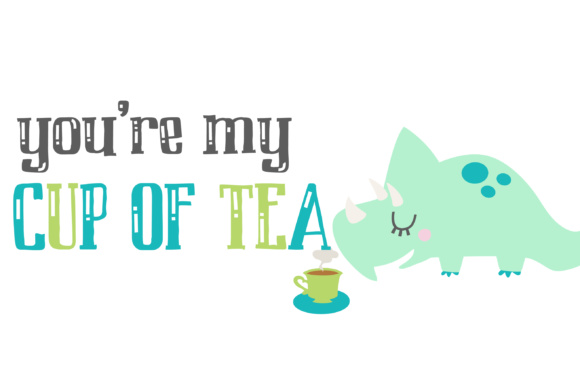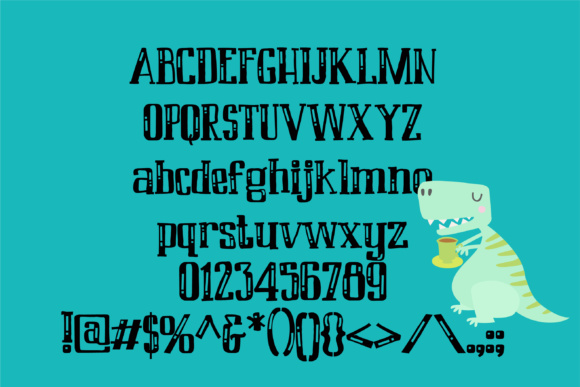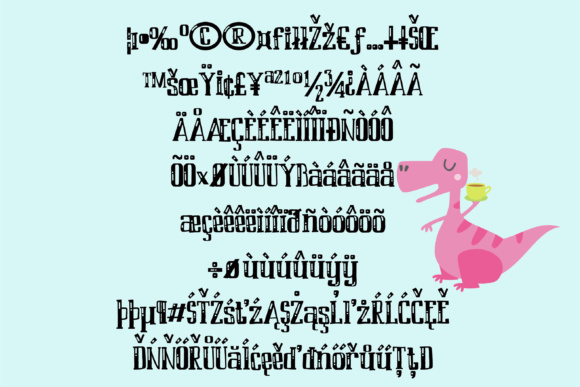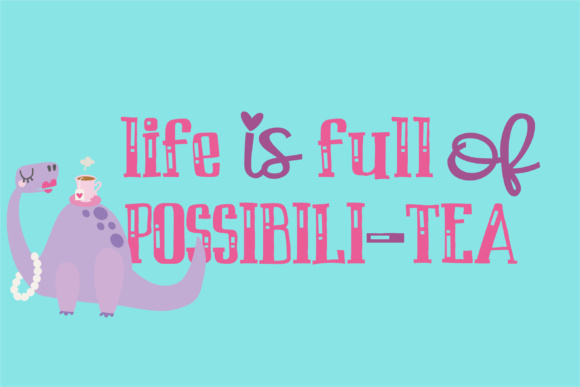
HomeScript FontsFinnegan Fine Font Script Fonts Finnegan Fine Font FacebookXPinterestWhatsApp Finnegan Fine Font Poster 2 Finnegan Fine Font Poster 3 Finnegan Fine Font Poster 4 Finnegan Fine Font Poster 5 About Finnegan Fine Font Finnegan Fine is a adorable hand-crafted font that has a boxy look with cute highlights throughout. DOWNLOAD NOW People also explored Thursday Winter Font Able Lingo ASL 2 Font Scoottburg Font Bonjour Font Queen Signature Font Monogram Leaves and Stars Font Royal Butter Font Rhepeat Hunter Font Polyester Notes Font 339 0 TagsFinnegan Fine Font Previous articleAphrodisiac FontNext articleMousetrap Font LEAVE A REPLY Cancel reply Comment: Please enter your comment! Name:* Please enter your name here Email:* You have entered an incorrect email address! Please enter your email address here Website: Save my name, email, and website in this browser for the next time I comment. Personal Use Free Cintya Personal Use Free Read more about this font Dr.Marz Personal Use Free Read more about this font Geuli Personal Use Free Read more about this font Metal Lord Personal Use Free Read more about this font BLOG 5 Fonts That Will Dominate Design Trends in 2026 5 Fonts for 2026 That Will Dominate Design Trends Typography plays a critical role in visual communication, and as we look ahead to 2026, it’s... Using Fonts in Digital Marketing: Tips to Strengthen Your Brand Identity Transform Your Website: Elevate Your Typography with 7 Best Web Font Generators Exploring Font Trends